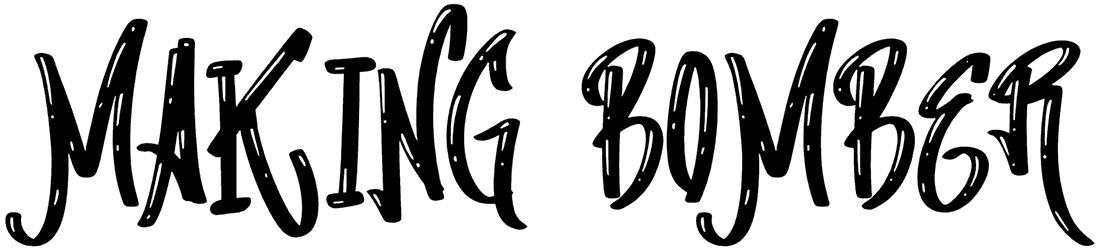
Making Bomber Font
Making Bomber is a unique style of graffiti font that has a metallic and shiny look and can create a good effect in industrial projects. This brush font has thick ascents and descents with sharp connections that create a special visual effect without lowercase letters. So, it is very suitable for social media or logos that are directly related to human communities.